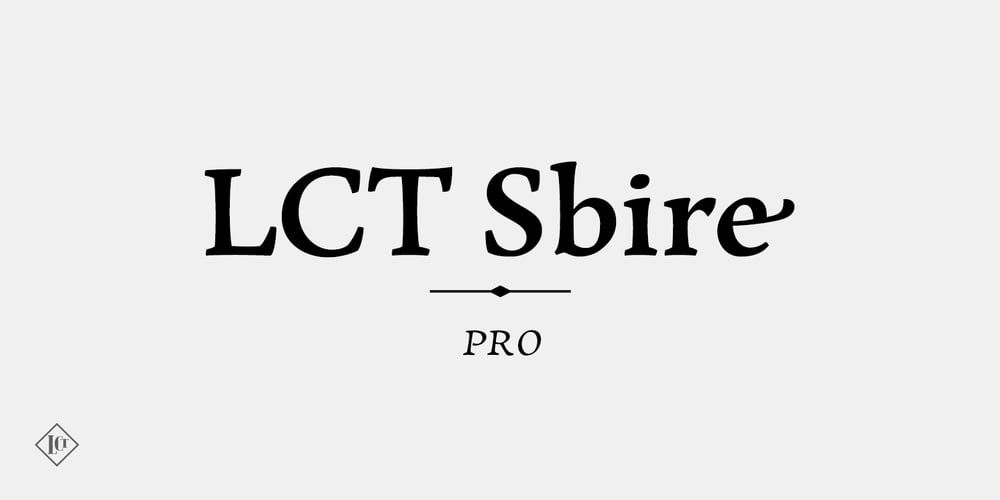
LCT Sbire Font Family was designed by Quentin J. Stavinsky and published by LCT. LCT Sbire contains 5 styles and family package options. This Font is born basing itself on several standard typographic models. Inspired by our calligraphic drawings, the idea was to synthesize these many shapes into a unique font that can be used commonly. The slab base has been gradually humanized. The serifs have been carved, refined, rounded off, in order to galvanize the font and ease the task of reading in lower case. The angle of attack of the round letters is an echo of the 15 Century typographic heritage. It was important for us to create an expressive and humanized font, which could also be used for edition. The purpose was to confront the Ancient typographic canon of beauty with some funny and fancyful elements.